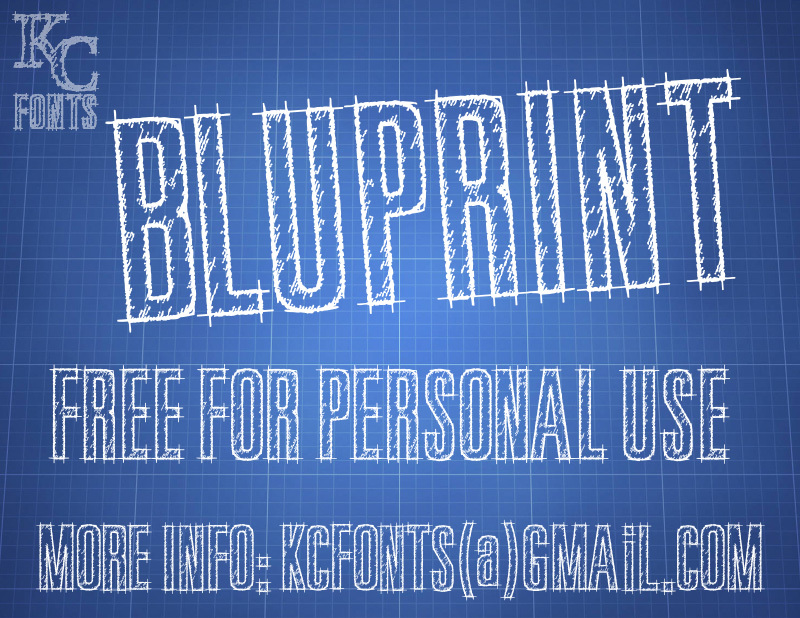
Bluprint by Kevin Christopher of KC Fonts is a free outlined techno display font with tall, tightly packed capitals and the rough workings of a technical drawing. Fine construction lines, doubled contours, and loose diagonal hatching make each letter look drafted rather than cleanly rendered.
It can turn a title into part lettering, part architectural sketch for engineering posters, maker-event graphics, and industrial packaging. The exposed guide marks suit classroom materials and science museum displays aimed at students, hobbyists, and anyone drawn to the process behind a finished design.